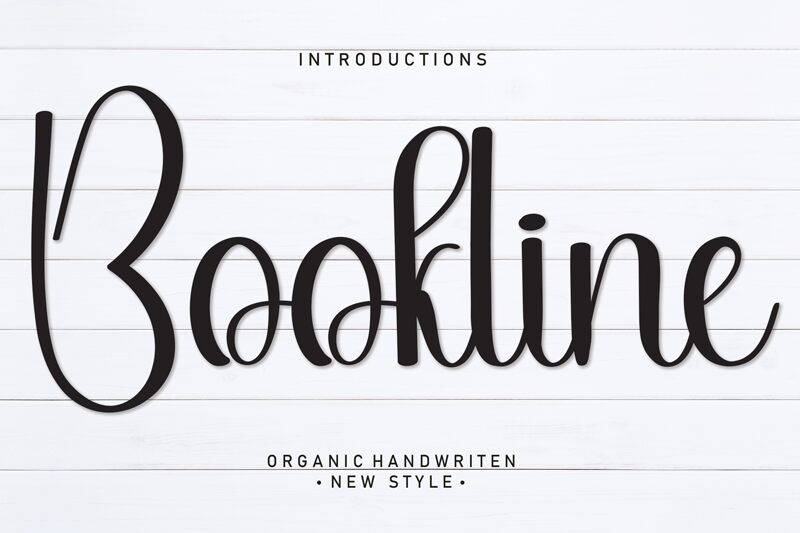
Bookline
Bookline, a creation by Scratchones, exudes a warm, personal touch with its handwritten style that brings the charm of individuality to the page. Its flowing letters and organic curves suggest a casual elegance that invites readers into an intimate conversation. This font captures the nostalgia of ink on paper, making it ideal for projects that require a bespoke feel.
The aesthetic appeal of Bookline lies in its ability to convey authenticity and approachability, perfect for personalized stationery, invitation cards, or branding for boutique businesses seeking to establish a friendly and inviting presence. Its informal yet stylish appearance makes it versatile enough for both digital and print mediums where character and distinctiveness are desired.